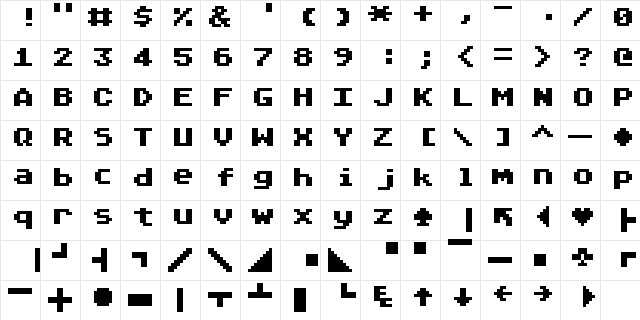
ATASCII Regular
Design Context for ATASCII Typeface
ATASCII offers clean, dependable letterforms without strong stylistic allegiance, making it a practical choice for designers who need flexibility.